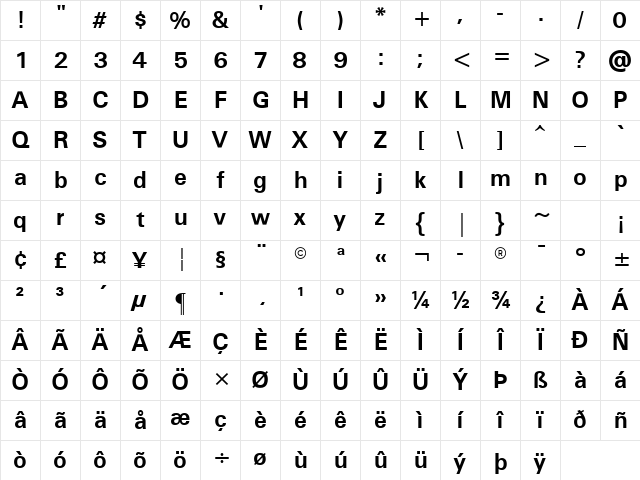
Complete Univers ATT Bold glyph index. Displaying only characters natively supported by Univers ATT Bold font.
Univers ATT is a composed and adaptable typeface that performs quietly and consistently across a wide range of design contexts. Its bold stroke weight gives it real presence on the page.